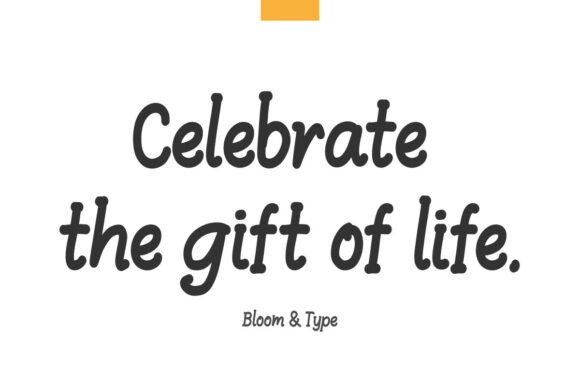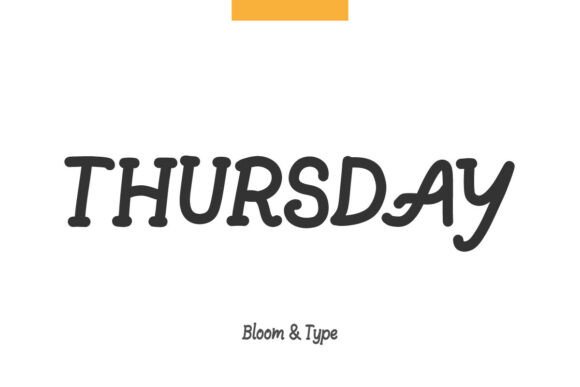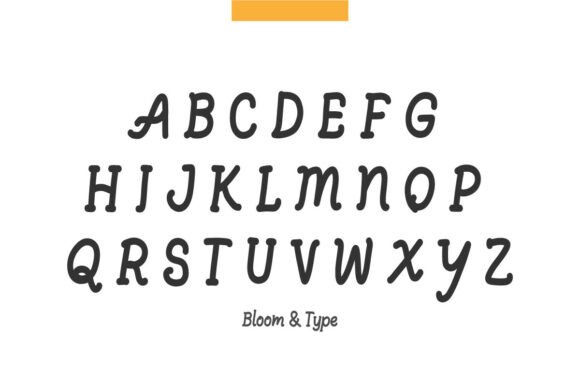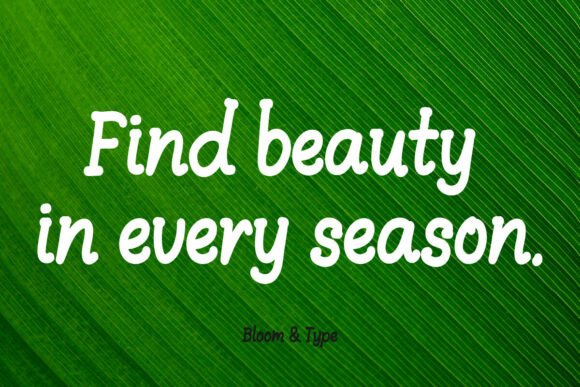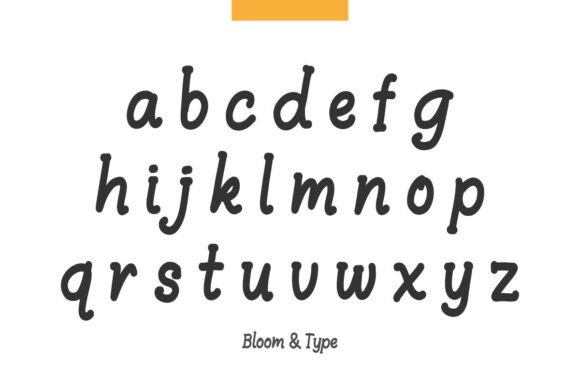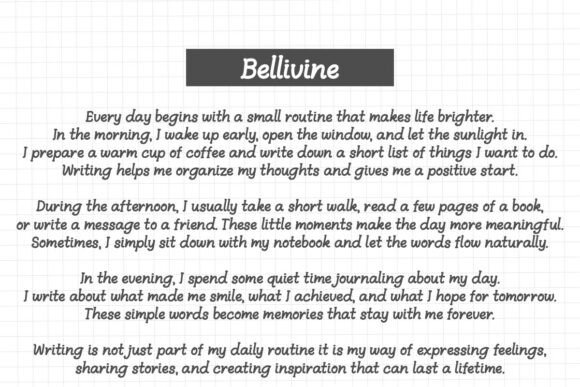
Bellivine Font: Elevate Your Designs with a Charming Handwritten Typeface
In the world of typography, a font can make all the difference in conveying the right tone and personality for a brand or project. If you’re looking for a typeface that exudes positivity, elegance, and modern warmth, look no further than Bellivine. This charming handwritten font is designed to add a personal touch to your designs, making it perfect for creators who want to blend creativity with authenticity.
The Characteristics of Bellivine
Bellivine’s design is characterized by its rounded edges and smooth flow, giving each letter a friendly and natural feel. The font’s soft, organic rhythm works beautifully in both digital and print formats, making it versatile for a wide range of applications. Whether you’re working on branding, packaging, or uplifting quotes, Bellivine adds a touch of approachability and style that’s hard to resist.
Bellivine typeface is perfect for a variety of projects, including:
- Branding & Logo design: Create a lasting impression with a custom logo that showcases your brand’s personality.
- Social media content: Add a personal touch to your social media posts and stories with a font that’s engaging and easy to read.
- Greeting cards & Invitations: Make your cards and invitations stand out with a charming and elegant font.
- Packaging & Product labels: Elevate your product’s packaging with a font that’s both stylish and approachable.
- Inspirational quotes: Share your favorite quotes with a font that’s uplifting and motivational.
- Posters & Flyers: Create eye-catching posters and flyers that grab attention and convey your message with style.
Multilingual Support
As a global creator, you want to ensure that your designs can reach a wide audience. Bellivine font comes with multilingual support for Spanish, French, German, Portuguese, and Italian, making it a delightful choice for creators around the world.
Why Choose Bellivine?
So why choose Bellivine font for your next project? Here are just a few reasons:
- Unique and charming design: Bellivine’s handwritten design sets it apart from other fonts, giving your projects a personal touch.
- Versatile and adaptable: The font’s smooth flow and rounded edges make it suitable for a wide range of applications, from digital to print.
- Multilingual support: Reach a global audience with a font that supports multiple languages.
- Elegant and modern: Bellivine’s design exudes elegance and modern warmth, making it perfect for brands and projects that want to appear stylish and sophisticated.
In conclusion, Bellivine font is a charming handwritten typeface that’s perfect for creators who want to add a personal touch to their designs. With its unique and charming design, versatile adaptability, multilingual support, and elegant modernity, Bellivine is an excellent choice for a wide range of projects. Whether you’re working on branding, packaging, or inspirational quotes, Bellivine font is sure to elevate your designs and convey your message with style.